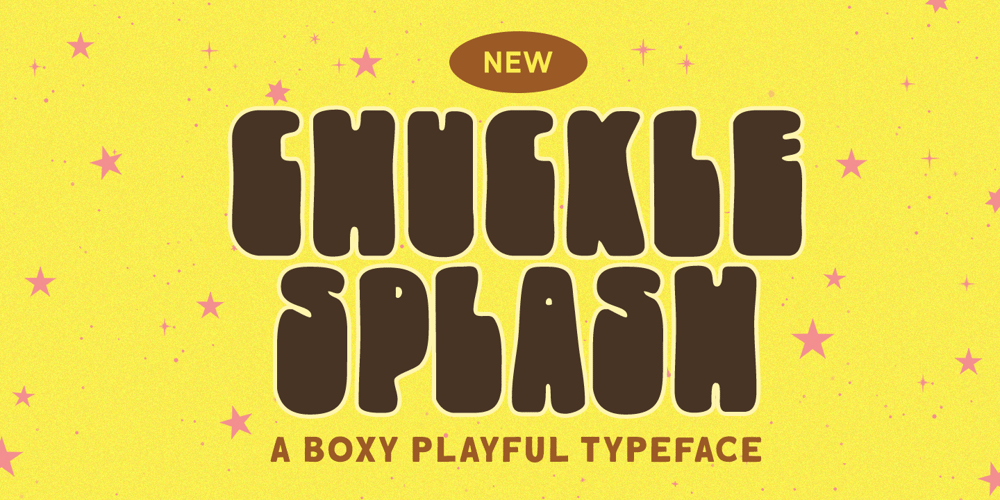
Chuckle Splash Font Family was designed by Hendry Juanda and published by Letterhend. Chuckle Splash contains 1 styles and family package options. Chuckle Splash is a boxy display font with playful vibes. This font perfectly made to be applied especially in logo, and the other various formal forms such as invitations, labels, logos, magazines, books, greeting / wedding cards, packaging, fashion, make up, stationery, novels, labels or any type of advertising purpose.Features : Uppercase & lowercase Numbers and punctuation Alternates & Ligatures Multilingual PUA encoded